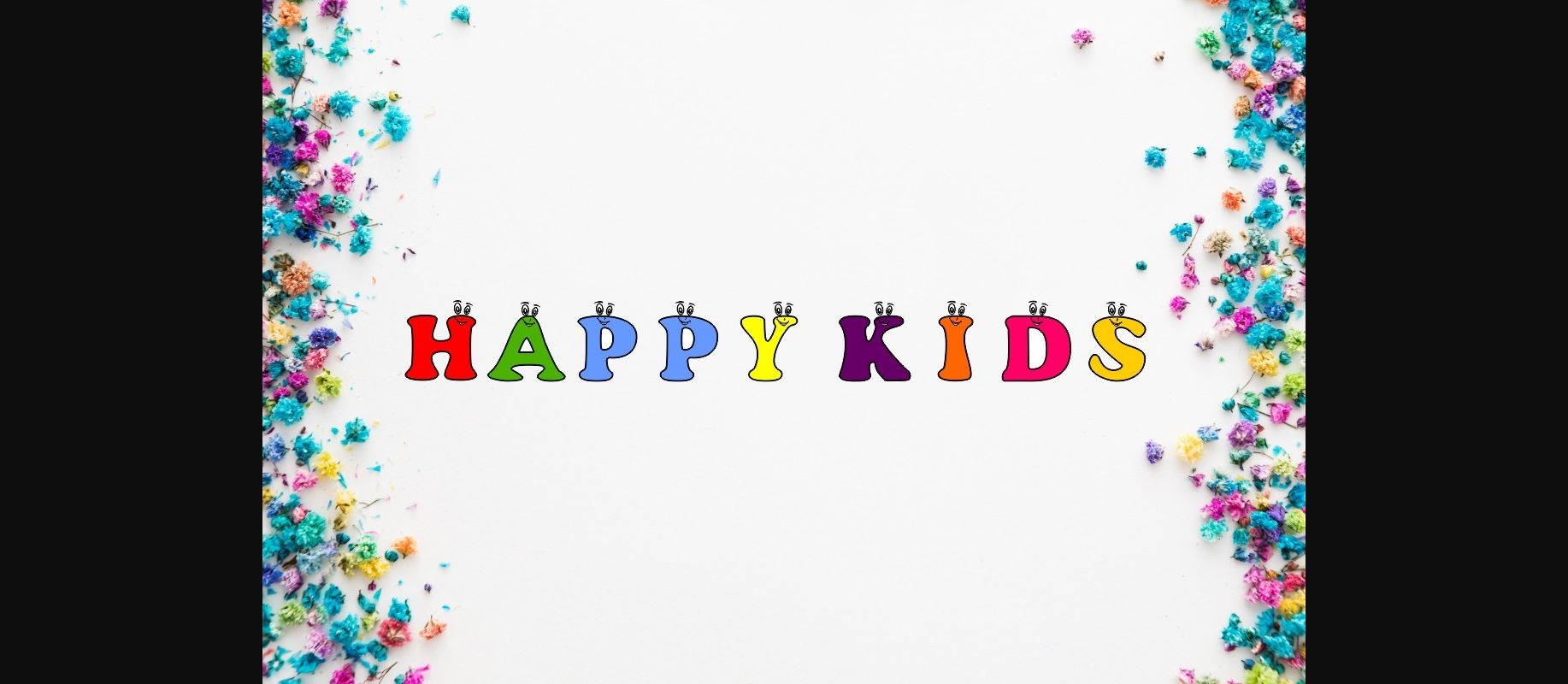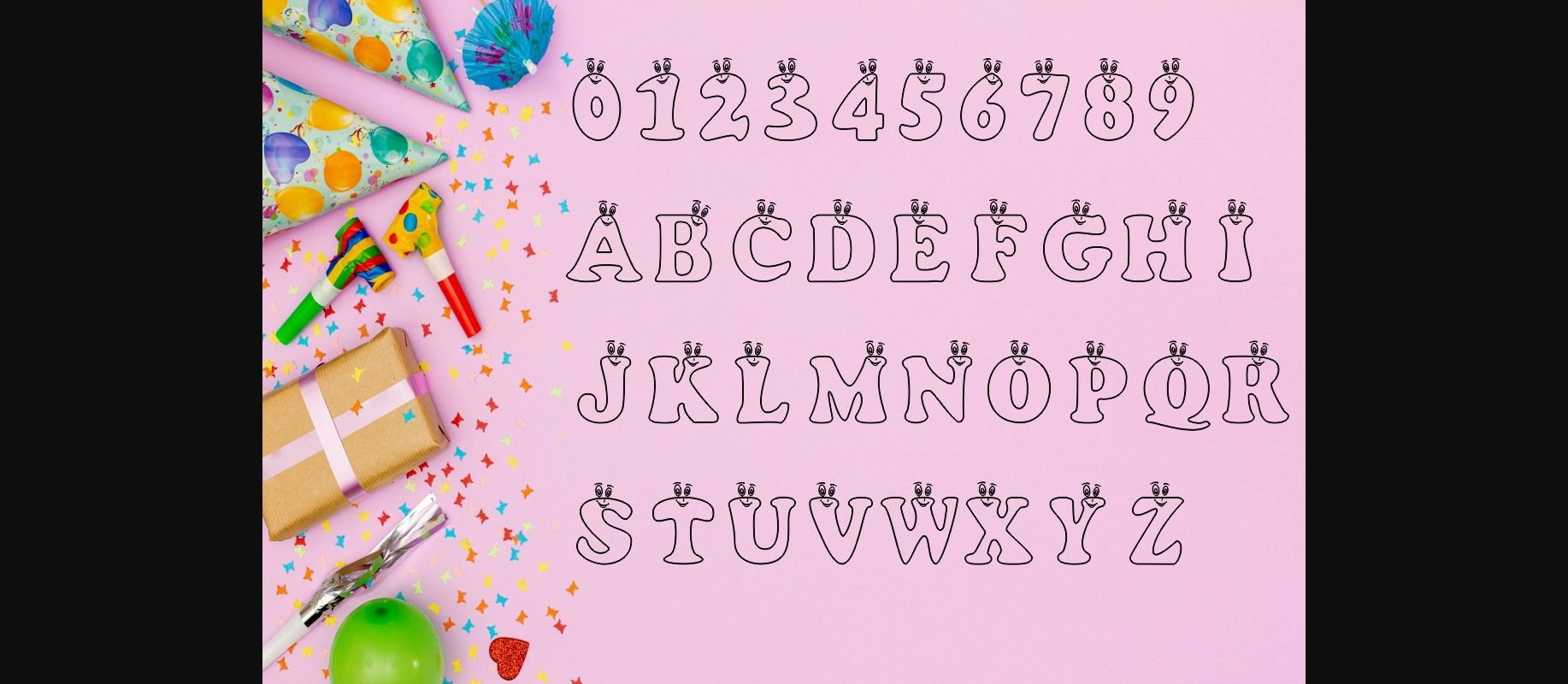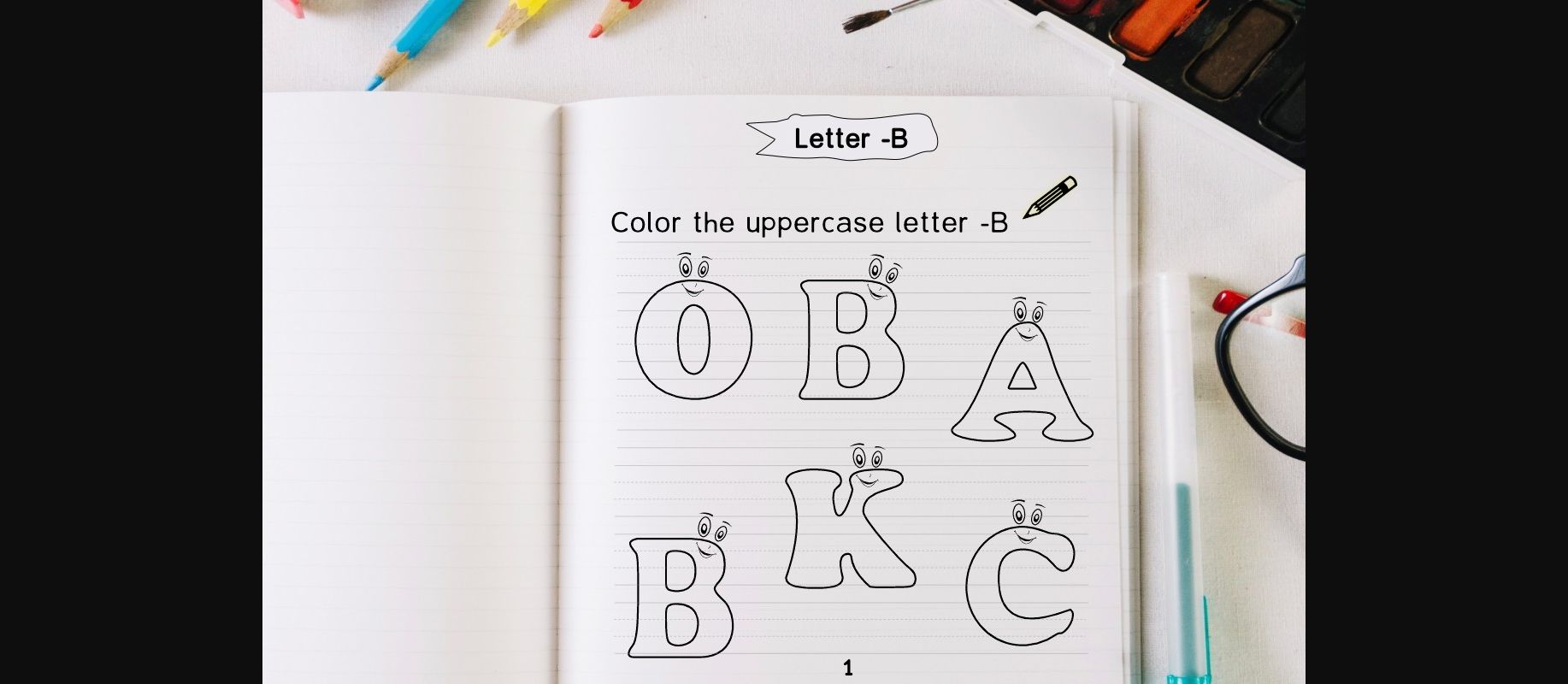
Happykids Font
About Happykids Font
HappyKids is a fun and friendly decorative display font. With its quirky vibe this font will bring a sense of whimsy to any design you wish to create!